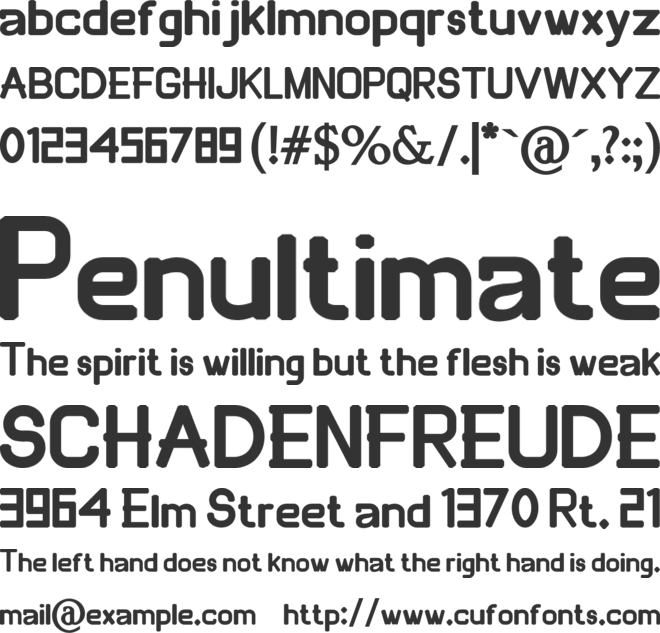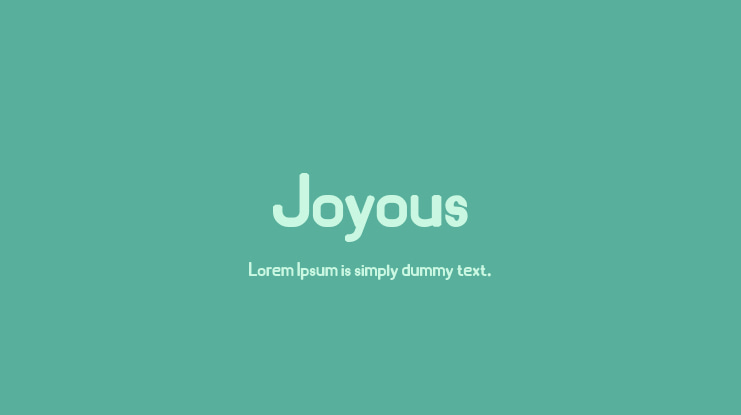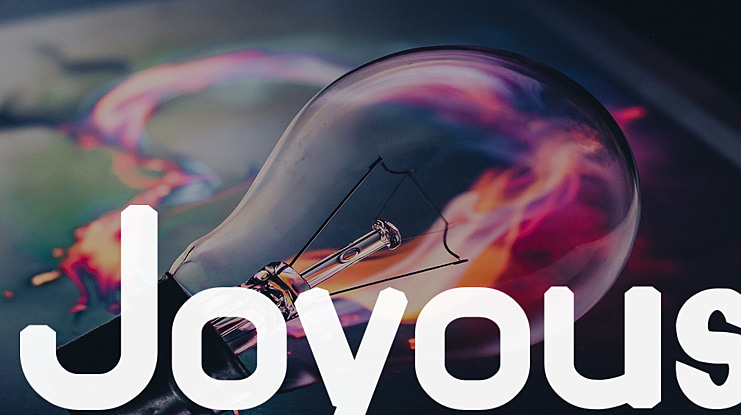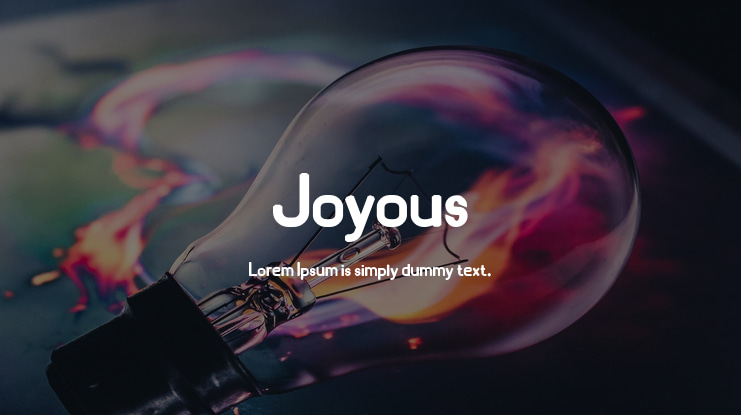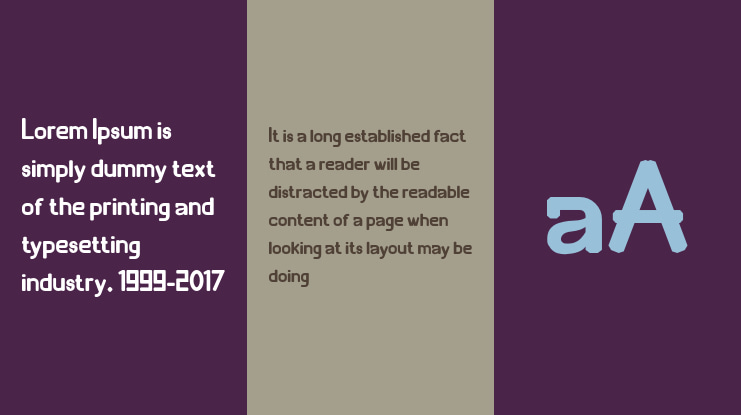
Joyous Font
Introducing our new release, Joyous A New Bold Display Type Font. This typeset is perfect for brand logo, invitations, greeting card, or even any kind of project. With multilingual feature and style variations, this typeface would further enhance the aestethical aspect of your work.Click our website :https://displaytypefont.com/product/joyous/